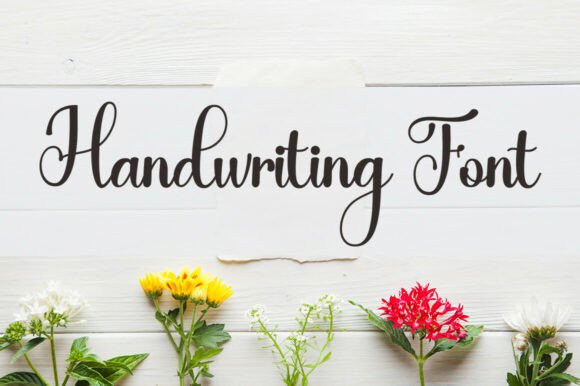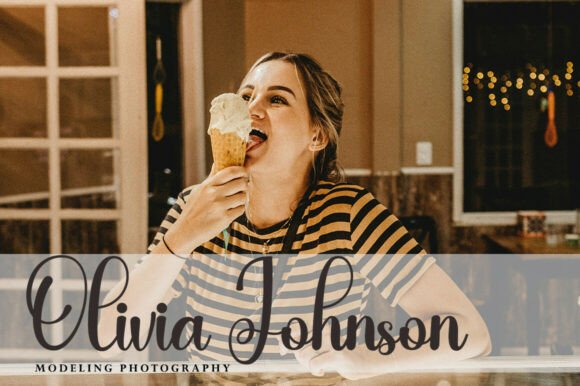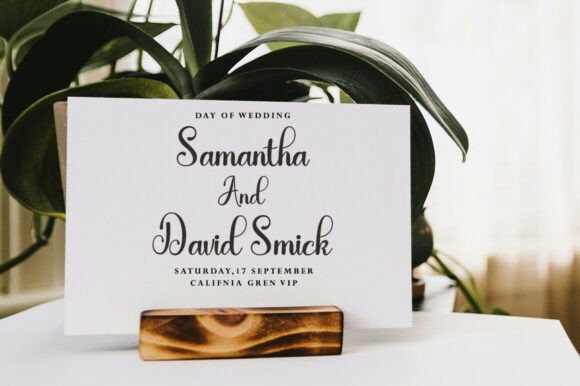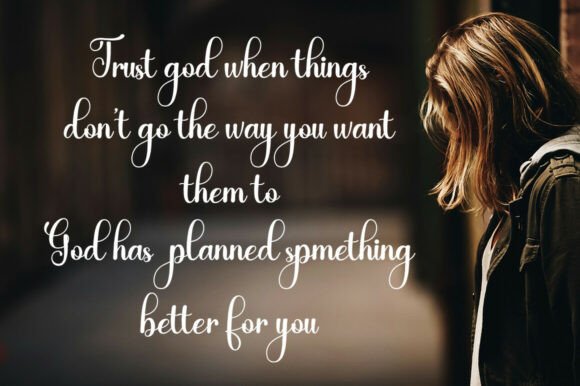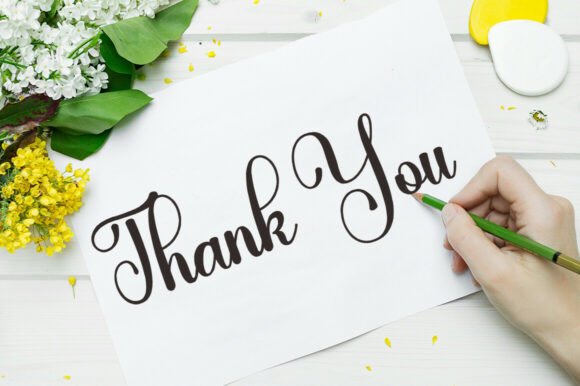
Introducing California Font: The Perfect Blend of Elegance and Casual Charm
Are you on the hunt for a font that exudes a sense of joy, romance, and sophistication? Look no further than California Font, a sweet and cursive handwritten font that’s sure to elevate your designs to new heights. With its gentle curves and flowing lines, this beautiful font is perfect for adding a touch of elegance and whimsy to a wide range of projects.
What Makes California Font So Special?
California Font is a versatile and eye-catching font that’s designed to make your designs stand out from the crowd. Its unique blend of elegance and casual charm makes it perfect for a variety of applications, from branding and logos to wedding stationery and greeting cards. Whether you’re a designer, crafty DIY enthusiast, or simply someone who loves to get creative, California Font is sure to become your new go-to font.
Design Ideas to Make the Most of California Font
So, what can you create with California Font? The possibilities are endless! Here are a few design ideas to get you started:
- Branding and Logos: Use California Font to create a memorable and stylish logo that reflects your brand’s personality and values.
- Wedding Stationery: Add a touch of romance and whimsy to your wedding invitations, save-the-dates, and other stationery with this beautiful font.
- Greeting Cards: Create stunning greeting cards for special occasions like birthdays, anniversaries, and holidays.
- Fashion and Lookbooks: Use California Font to add a touch of elegance and sophistication to your fashion designs and lookbooks.
- Marketing and Promotion: Make your marketing materials stand out with this eye-catching font, perfect for flyers, brochures, and other promotional materials.
Why Choose California Font?
So, why should you choose California Font for your next project? Here are just a few reasons:
- Unique and Eye-Catching: California Font is a one-of-a-kind font that’s sure to grab attention and make your designs stand out.
- Elegant and Sophisticated: With its flowing lines and gentle curves, this font exudes a sense of elegance and sophistication.
- Casual and Friendly: Despite its elegance, California Font still has a casual and friendly feel that’s perfect for designs that need to be approachable and relatable.
- Versatile: This font can be used for a wide range of projects, from formal and professional to casual and playful.
Tips for Using California Font
To get the most out of California Font, here are a few tips to keep in mind:
- Pair it with Other Fonts: California Font looks great when paired with other fonts, especially bold and sans-serif fonts.
- Experiment with Colors: This font looks stunning in a range of colors, from soft pastels to rich jewel tones.
- Play with Size and Style: Don’t be afraid to experiment with different sizes and styles to add visual interest to your designs.